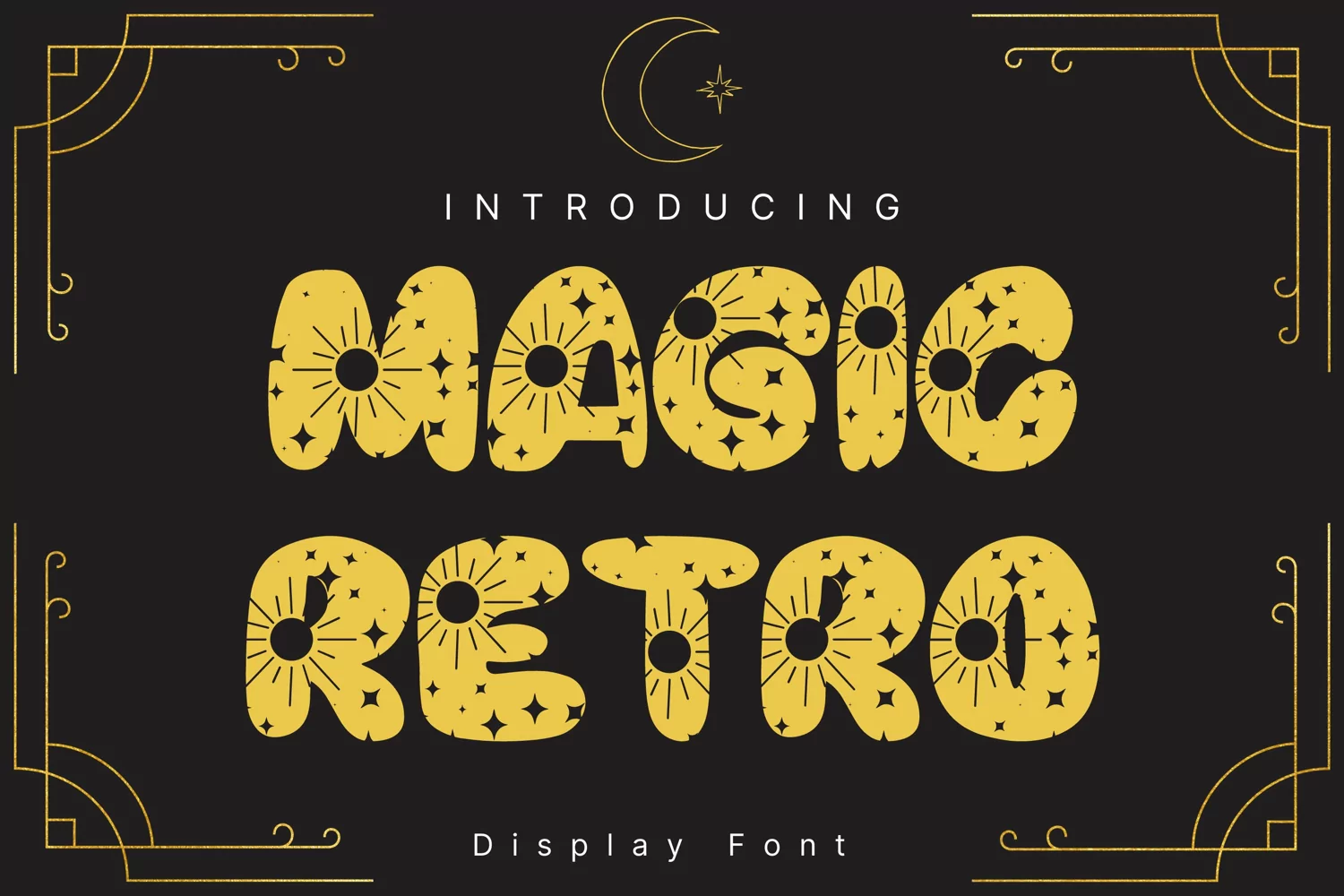
Created By AchiArt
Magic Retro Style
MagicRetro
Magic Retro Style is a whimsical and clean handwritten font. It can easily be matched to an incredibly large set of projects, so add it to your creative ideas and notice how it makes them stand out!